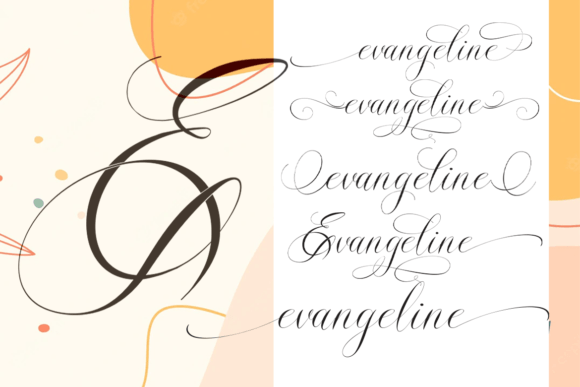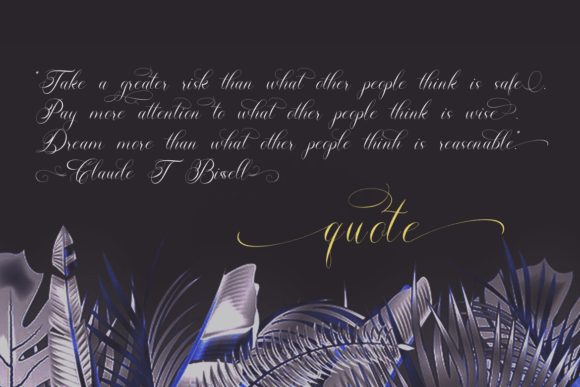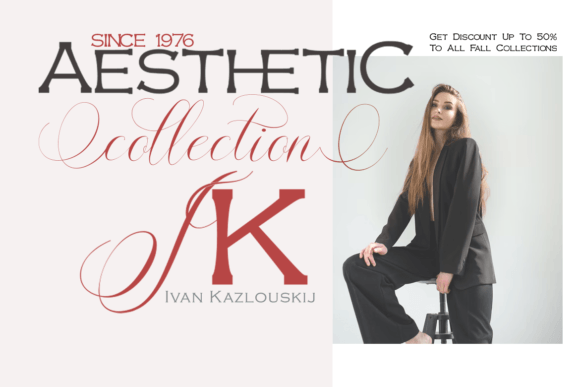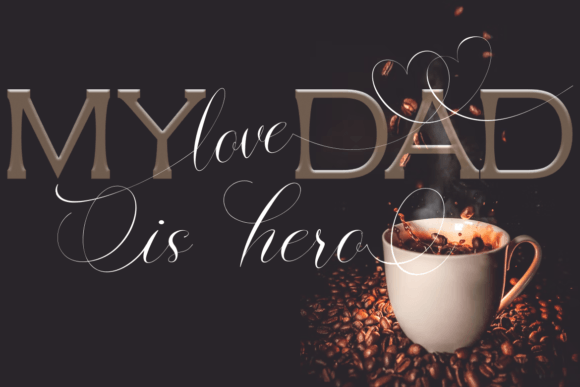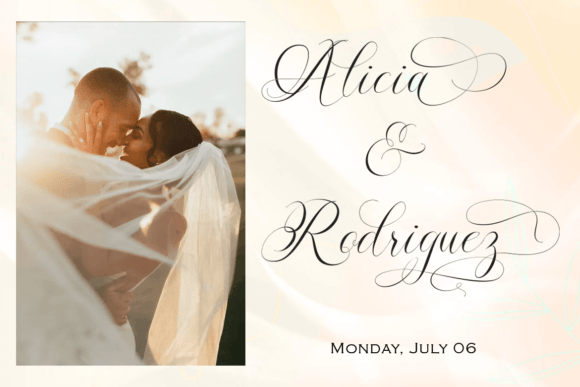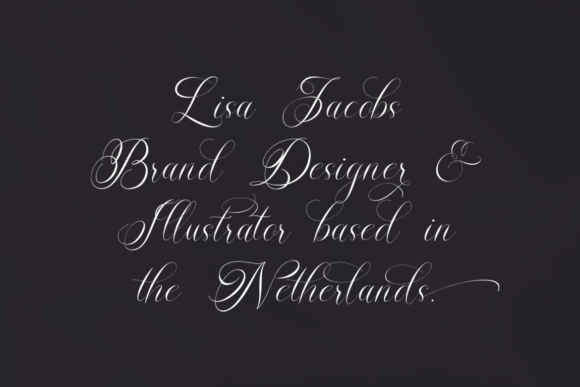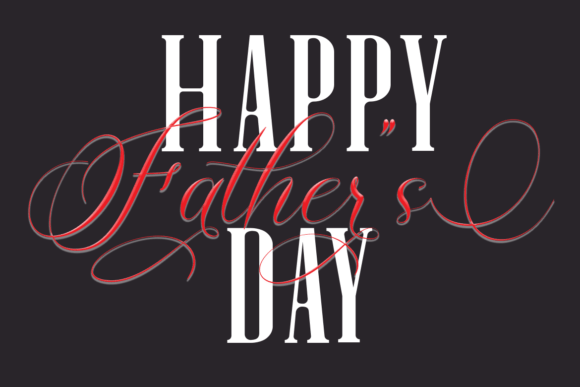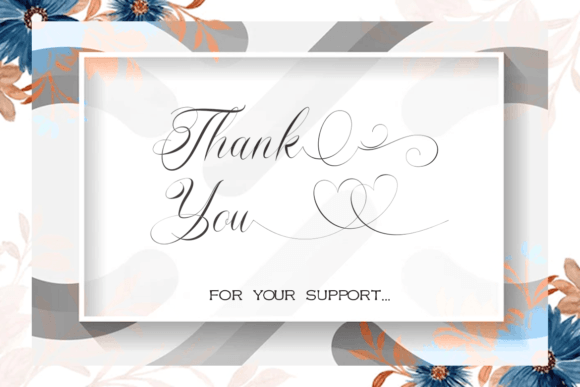
Dealova Font
About Dealova Font
“Dealova” is a font that embodies sleekness, modernity, and grace. Its ravishing style captures attention and adds a touch of sophistication to any design project. With its well-balanced characters, “Dealova” offers versatility, making it suitable for a wide range of creative applications. Additionally, being PUA encoded provides easy access to its extensive set of glyphs and swashes, enhancing creative freedom.
**Sleek and Modern Elegance**: “Dealova” stands out with its sleek and modern design. Its clean lines and contemporary aesthetic make it a perfect choice for projects that require a sophisticated and stylish appearance. The font’s elegance adds a touch of refinement to any design it graces.
**Versatility in Design**: The well-balanced characters of “Dealova” make it highly versatile. Whether used in branding, advertisements, social media graphics, or product packaging, the font seamlessly adapts to various design contexts. Its modern and graceful style enhances the overall visual appeal of different creative projects.
**Ravishing Style**: “Dealova” captivates with its ravishing style. The font’s visually striking appearance creates a bold statement, making it perfect for designs that aim to leave a lasting impression. Its graceful curves and confident strokes add a sense of allure and charm to the text.
**Easy Access to Glyphs and Swashes**: The PUA encoding of “Dealova” provides easy access to its extensive collection of glyphs and swashes. This feature allows designers to experiment with various letter combinations and decorative elements, enhancing the font’s flexibility and customization options.
In summary, “Dealova” is more than just a font; it’s a symbol of modern elegance and versatility. Its sleek, modern, and graceful script style makes it a valuable asset for designers seeking to create beautiful and sophisticated designs. By incorporating “Dealova” into your projects, you infuse them with a sense of contemporary chic, ensuring they make a powerful and stylish statement. Let “Dealova” be the epitome of modern grace in your designs, adding a touch of sophistication to every creative endeavor it graces.